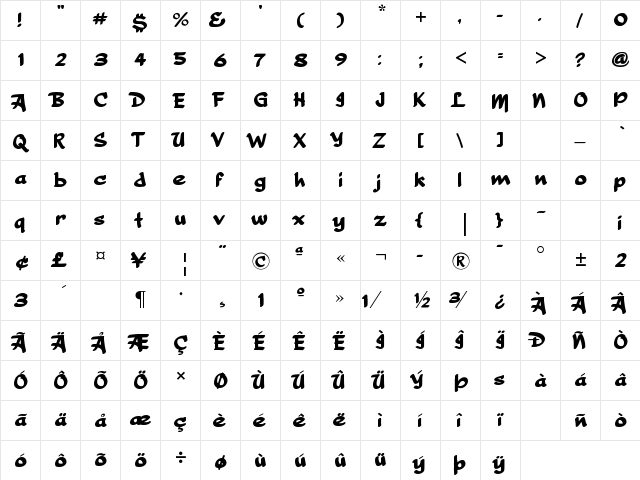
Thumbelina Regular
| Designer | Thumbelina |
Design Context for Thumbelina Typeface
Thumbelina is a composed and adaptable typeface that performs quietly and consistently across a wide range of design contexts.